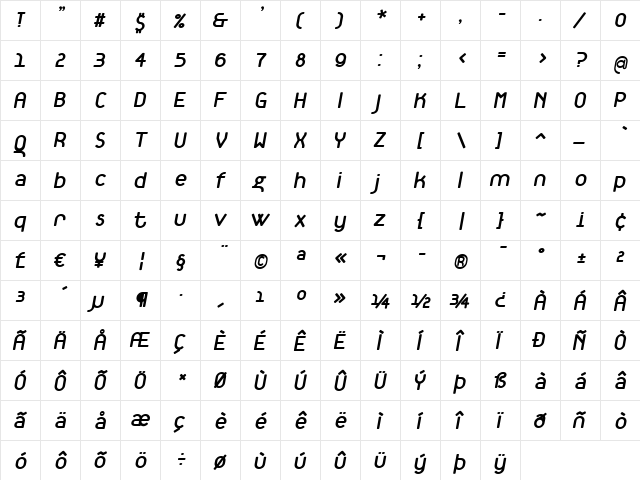
TantalusBoldItalic Regular
Design Context for TantalusBoldItalic Typeface
TantalusBoldItalic takes a measured approach to typography — its balanced proportions and neutral character make it a reliable workhorse for both digital and print work. The slanted form adds forward momentum and visual energy. Its bold stroke weight gives it real presence on the page.